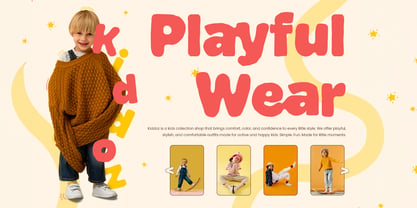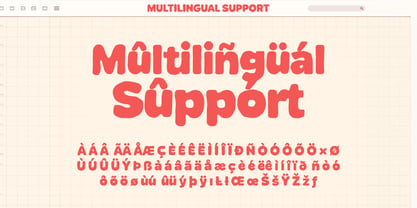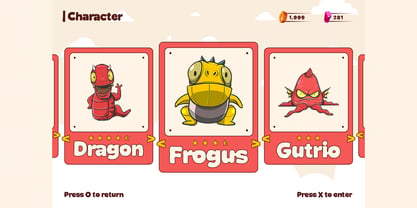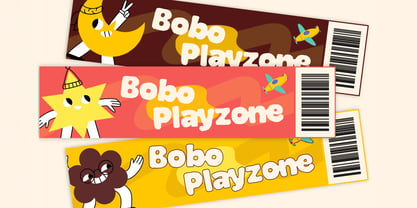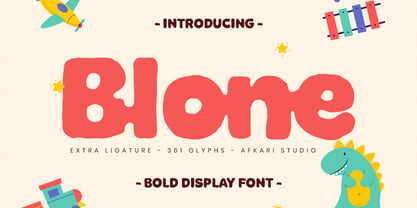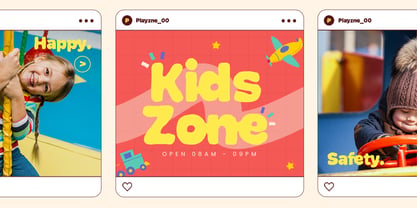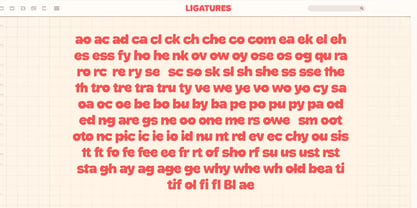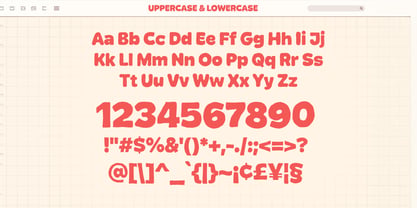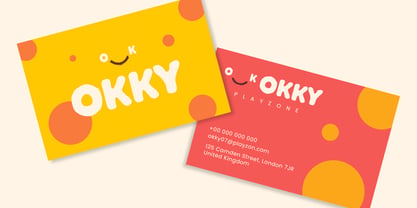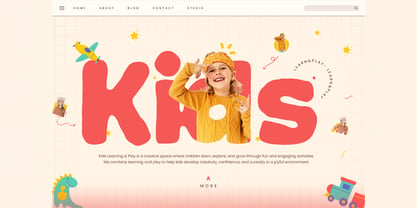
Blone
by Afkari Studio
The Blone Font Family was designed by Musthafa Kamal Emje and published by Afkari Studio. Blone contains 1 styles. More about this family
Blone is a powerful bold display font crafted to make a strong and confident visual statement. Designed with thick letterforms, solid structure, and modern proportions, Blone delivers high-impact typography that instantly grabs attention. Its bold personality makes it the perfect choice for designers who want their headlines to stand out clearly and memorably. This bold display font is ideal for branding, logo design, posters, packaging, apparel, merchandise, YouTube thumbnails, gaming graphics, sports designs, and social media content. The strong geometric construction combined with clean edges ensures excellent readability, even at large sizes. Blone is built to dominate layouts while remaining professional and versatile. Whether you’re designing a bold brand identity, streetwear logo, modern advertising campaign, or eye-catching editorial headline, this font gives your typography a fearless and energetic look. Highlighted Features: - Uppercase, Lowercase, Number, and Punctuation - Special alternates and ligatures - Works on PC & Mac - Simple installations - Accessible in Adobe Illustrator, Adobe Photoshop, Adobe InDesign, and even work on Microsoft Word - Fully accessible without additional design software. - Mültîlíñgúãl Sùppört for; ä ö ü Ä Ö Ü ß ¿ ¡ If you’re looking for a bold display font that combines strength, clarity, and modern style, Blone is ready to elevate your next creative project.